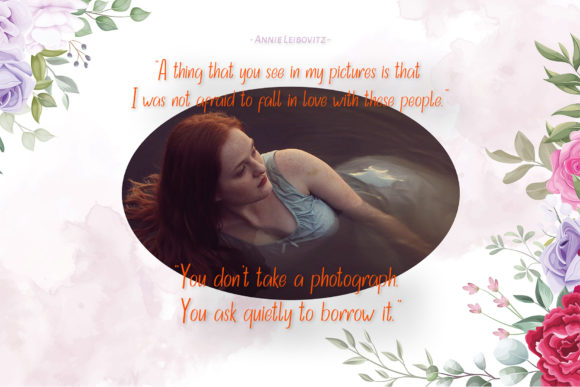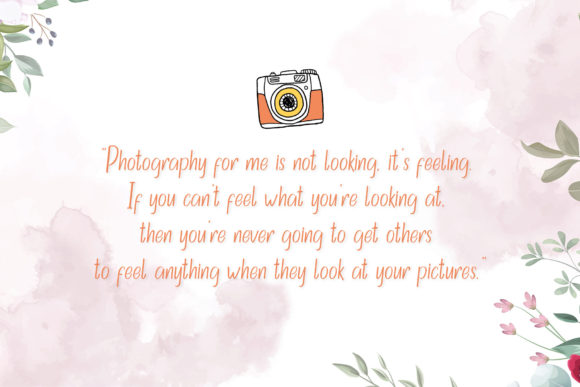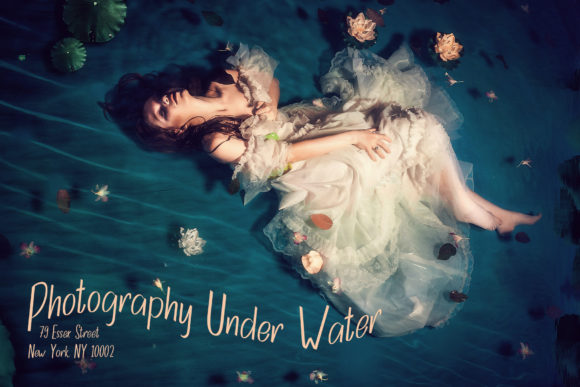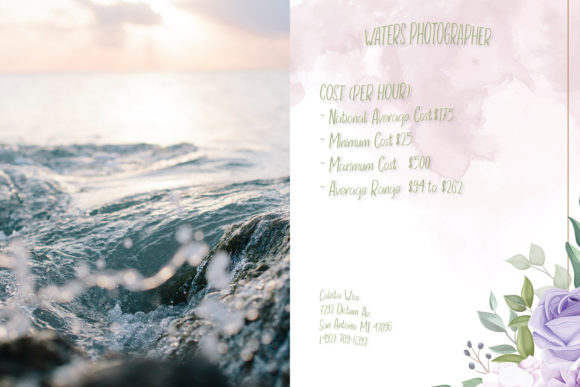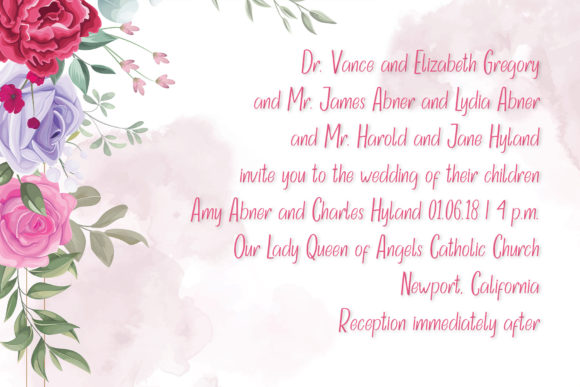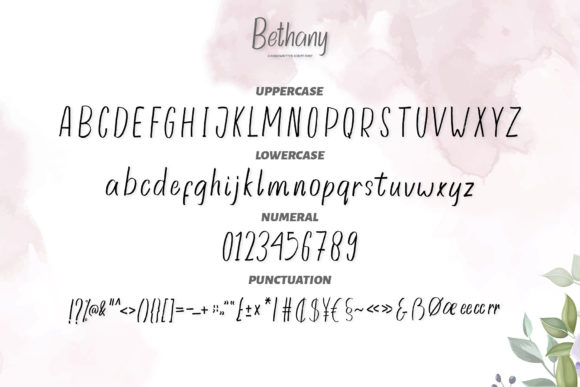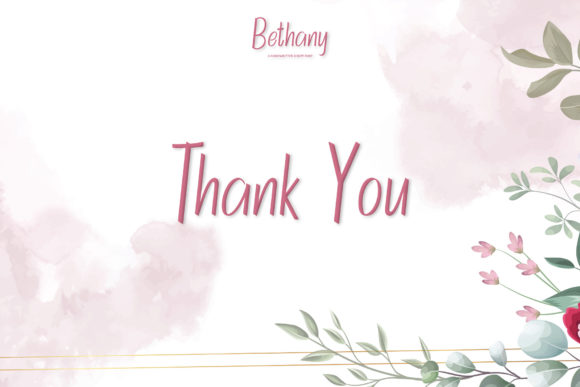
Bethany Font
“Bethany” is introduced as a stylish and dainty script font designed to bring a sense of elegance and delicacy to various design projects. The font is recommended for applications such as logos, branding projects, labels, photography, watermarks, special events, and any other lovely projects that require a beautiful script taste.
The description of “Bethany” as stylish and dainty suggests a font that aligns with modern design trends while exuding a refined and delicate aesthetic. Its versatility across different applications, from branding to special events, indicates that it can adapt to various design contexts.
The font is positioned as a valuable tool for creating visually appealing projects that demand a beautiful script taste. Whether used in logos, labels, or other design applications, “Bethany” is presented as a font that brings a touch of sophistication and charm to the overall visual composition.
In summary, “Bethany” is described as a stylish and dainty script font, making it suitable for a wide range of design projects. Whether applied to branding, photography, or special events, the font is presented as a versatile choice for designers seeking a script font that adds an element of beauty and elegance to their creative expressions.